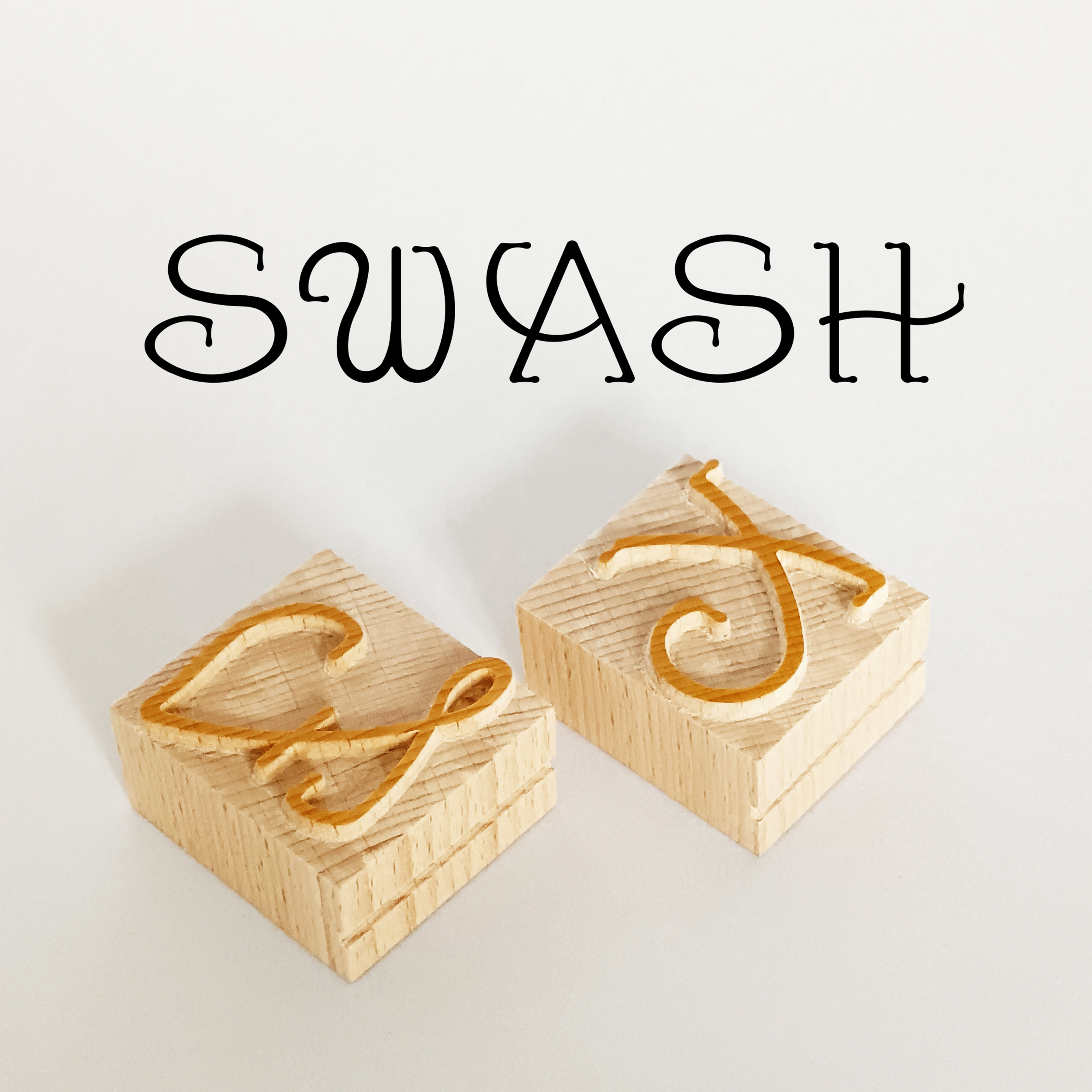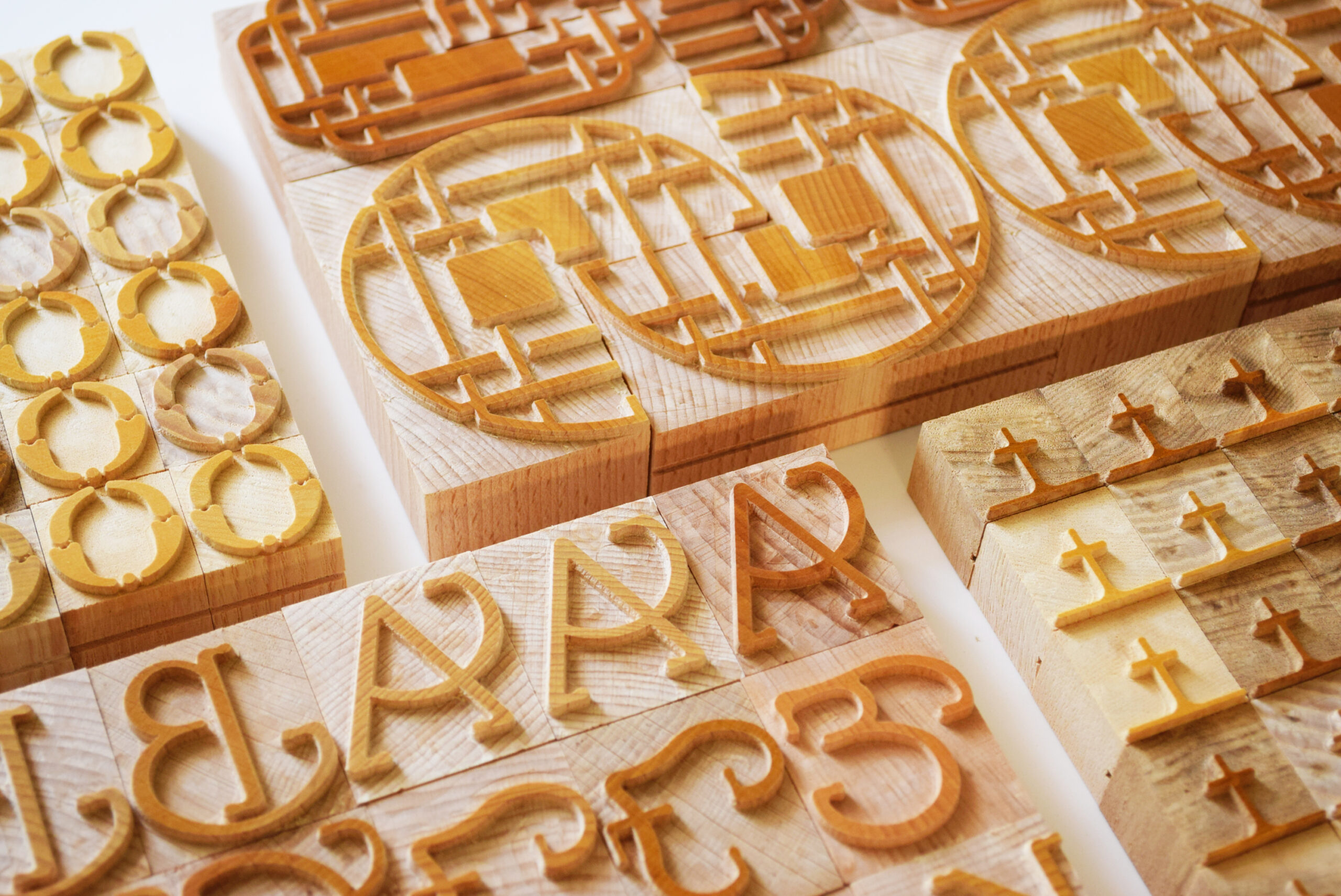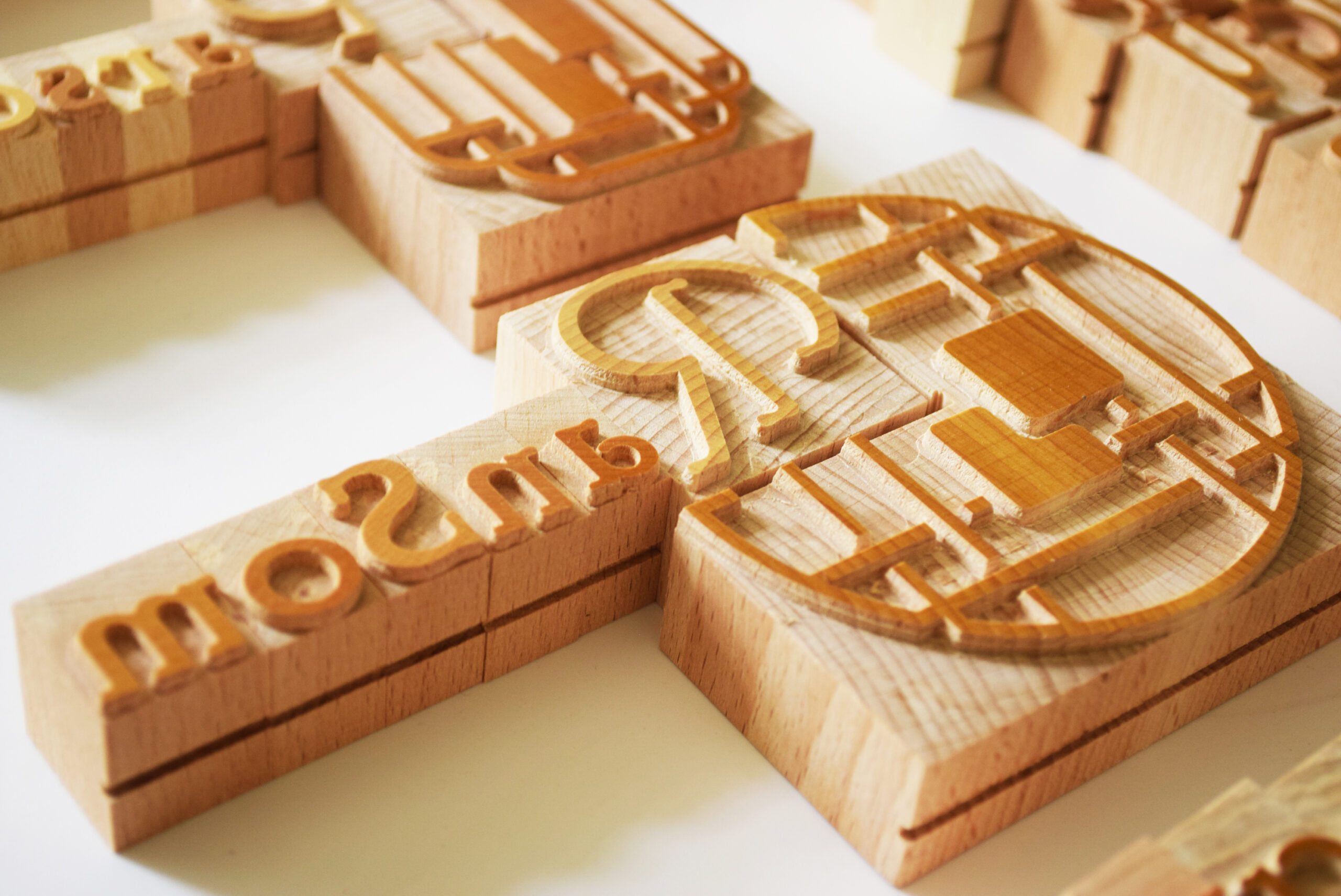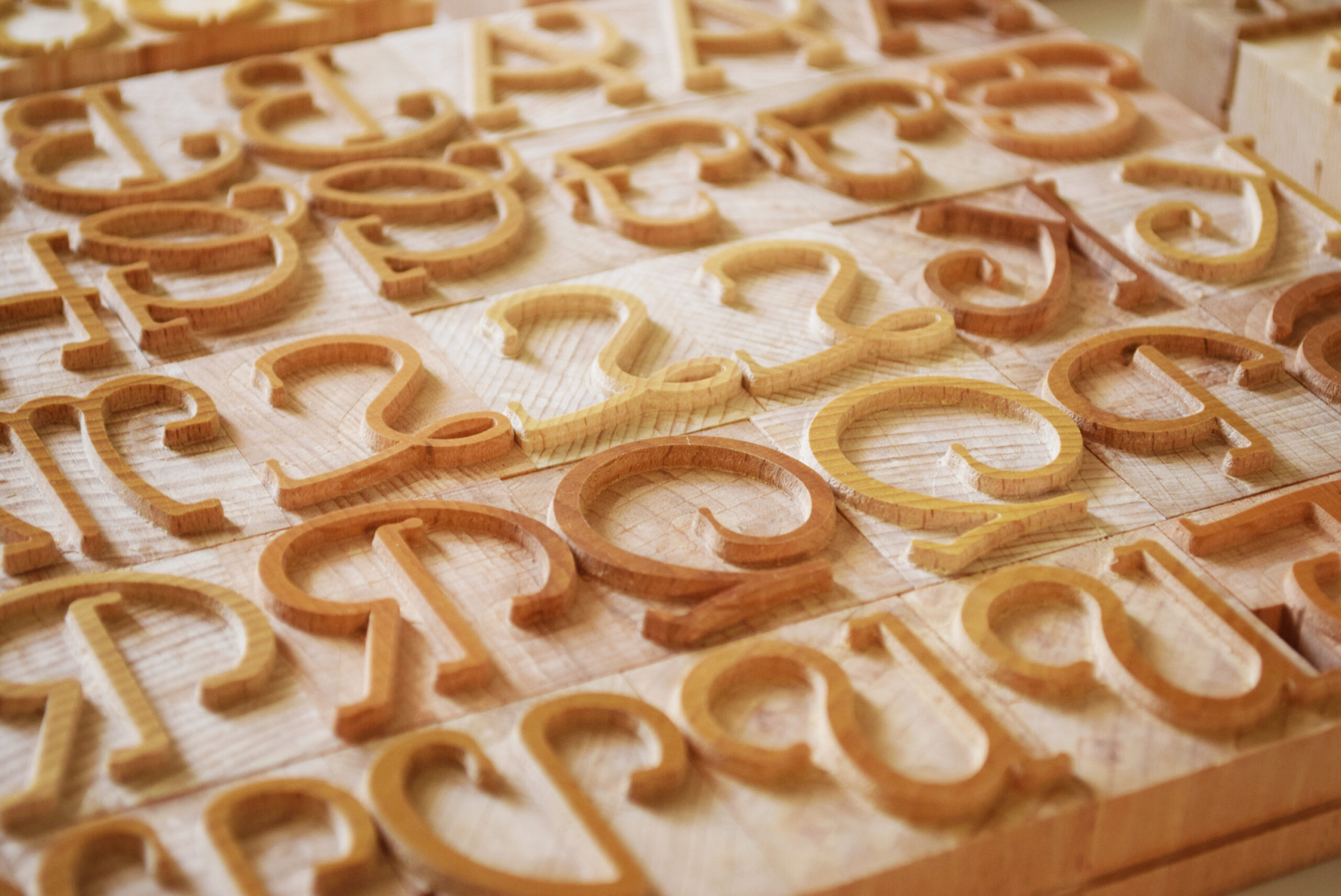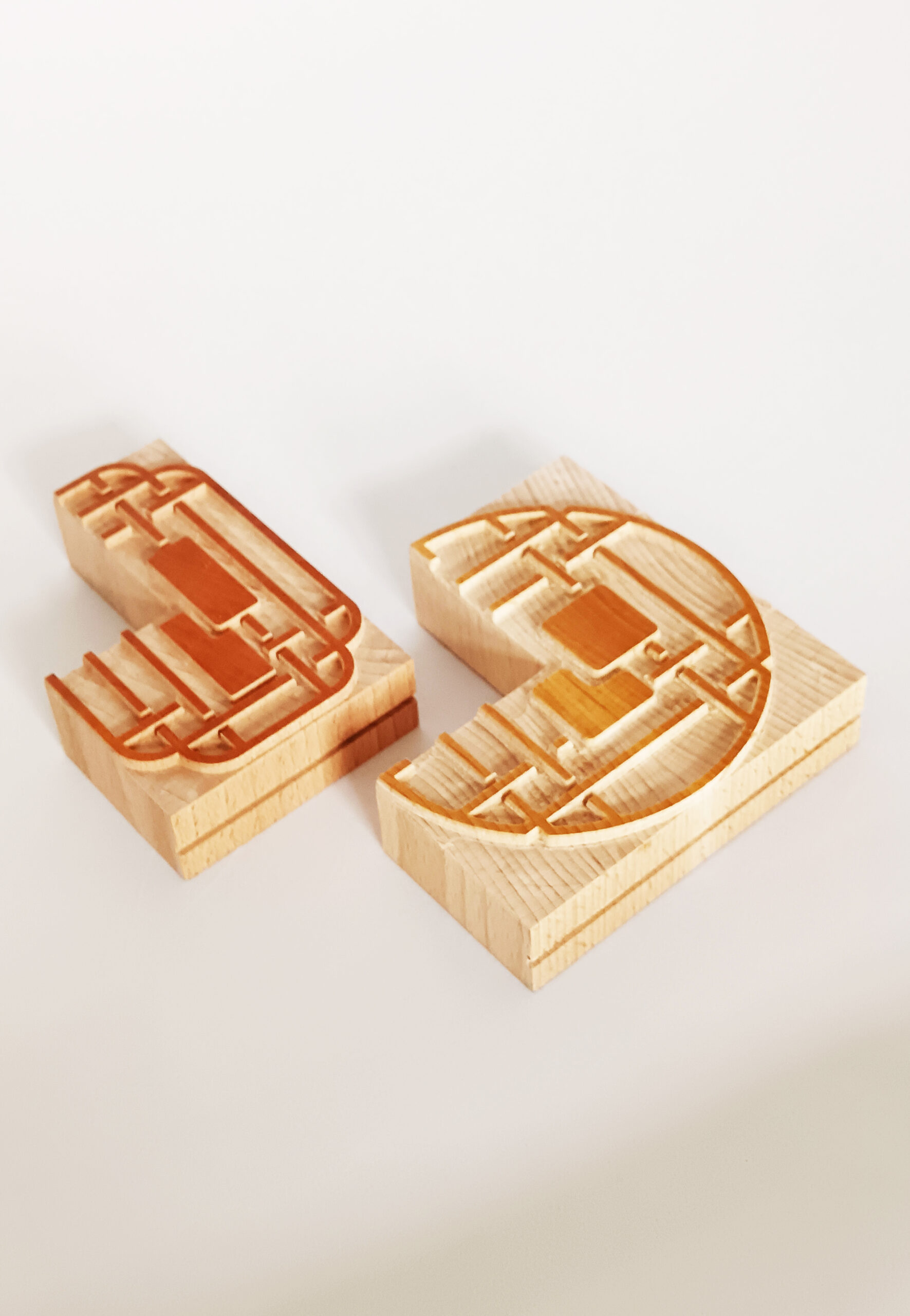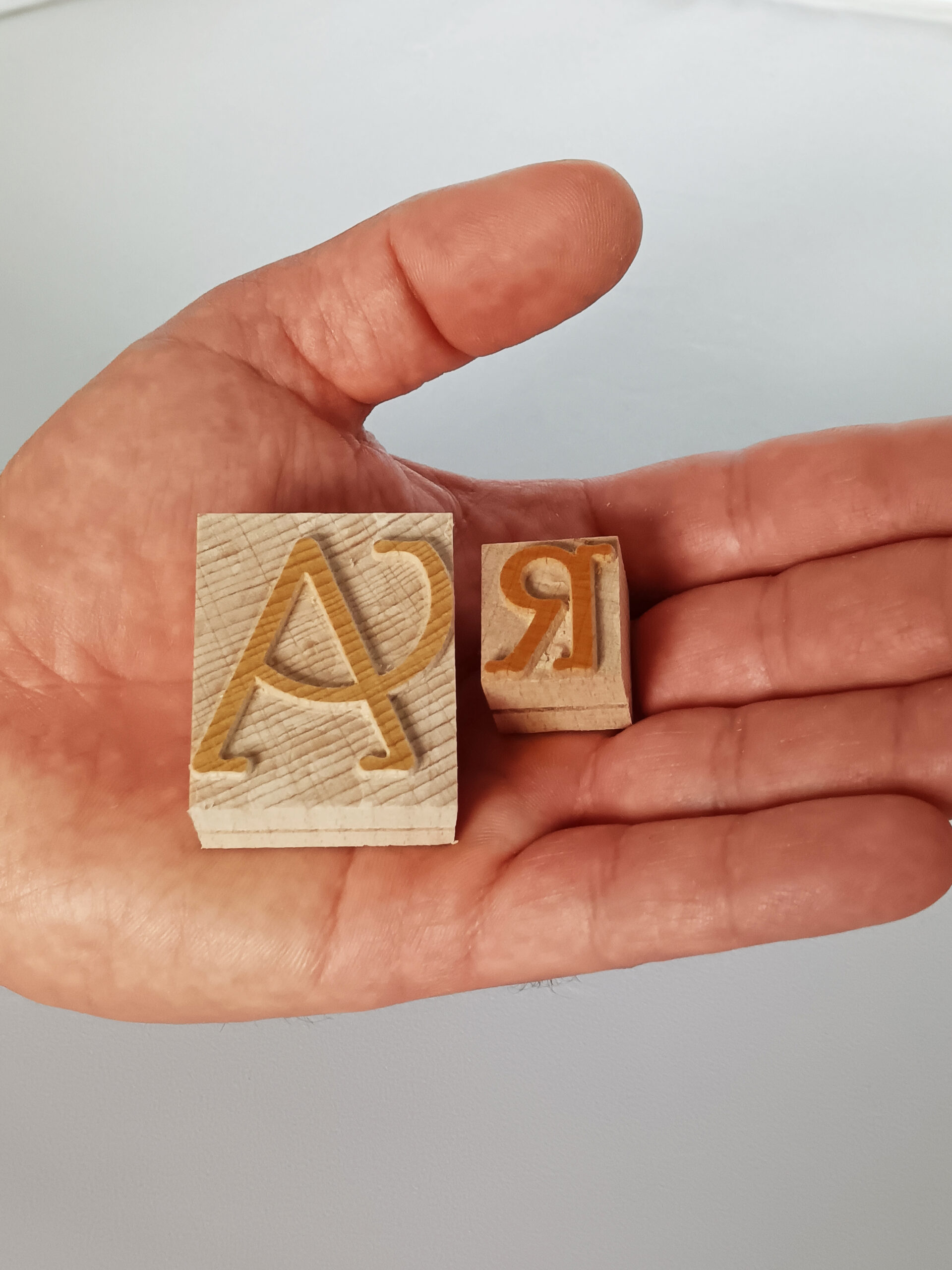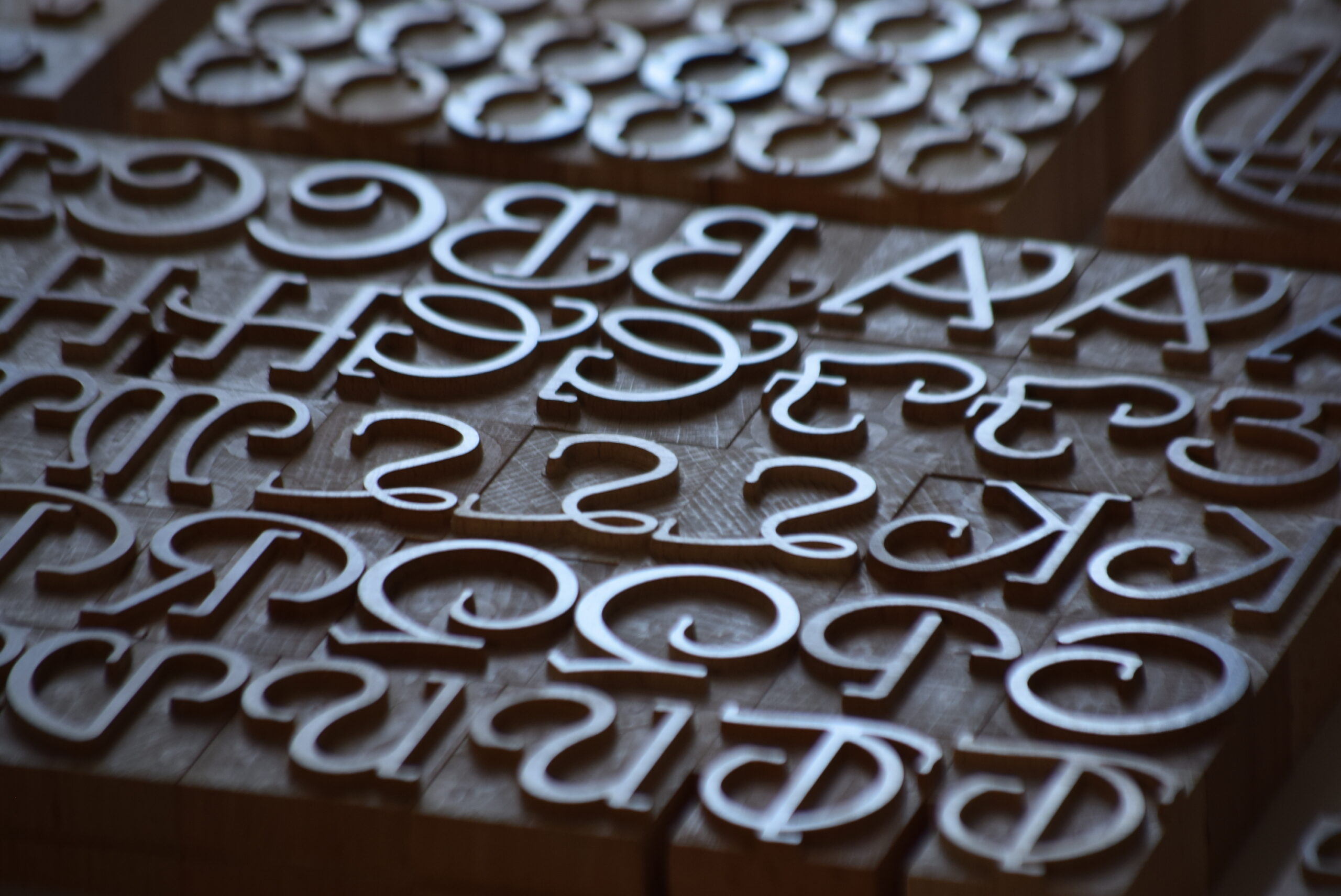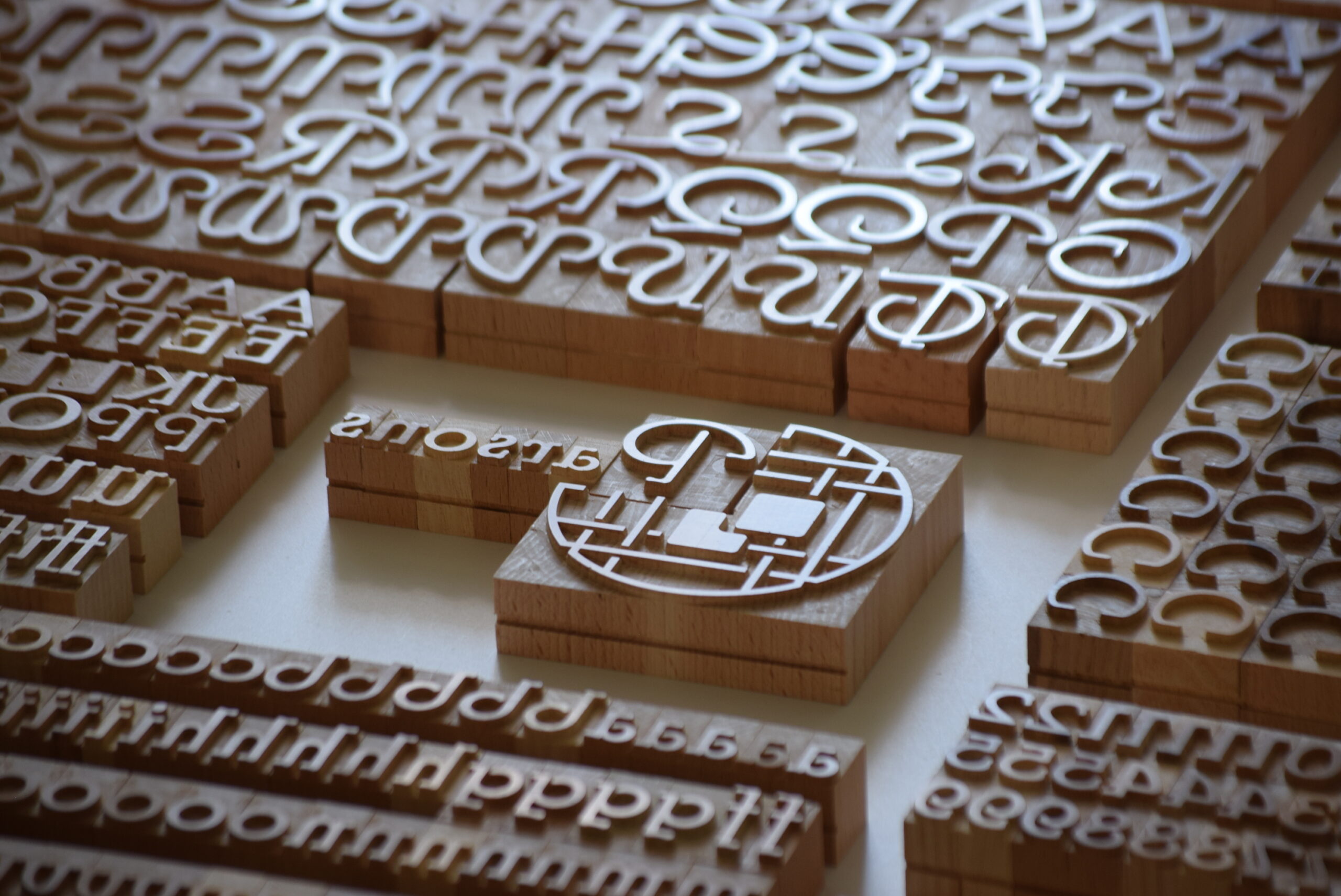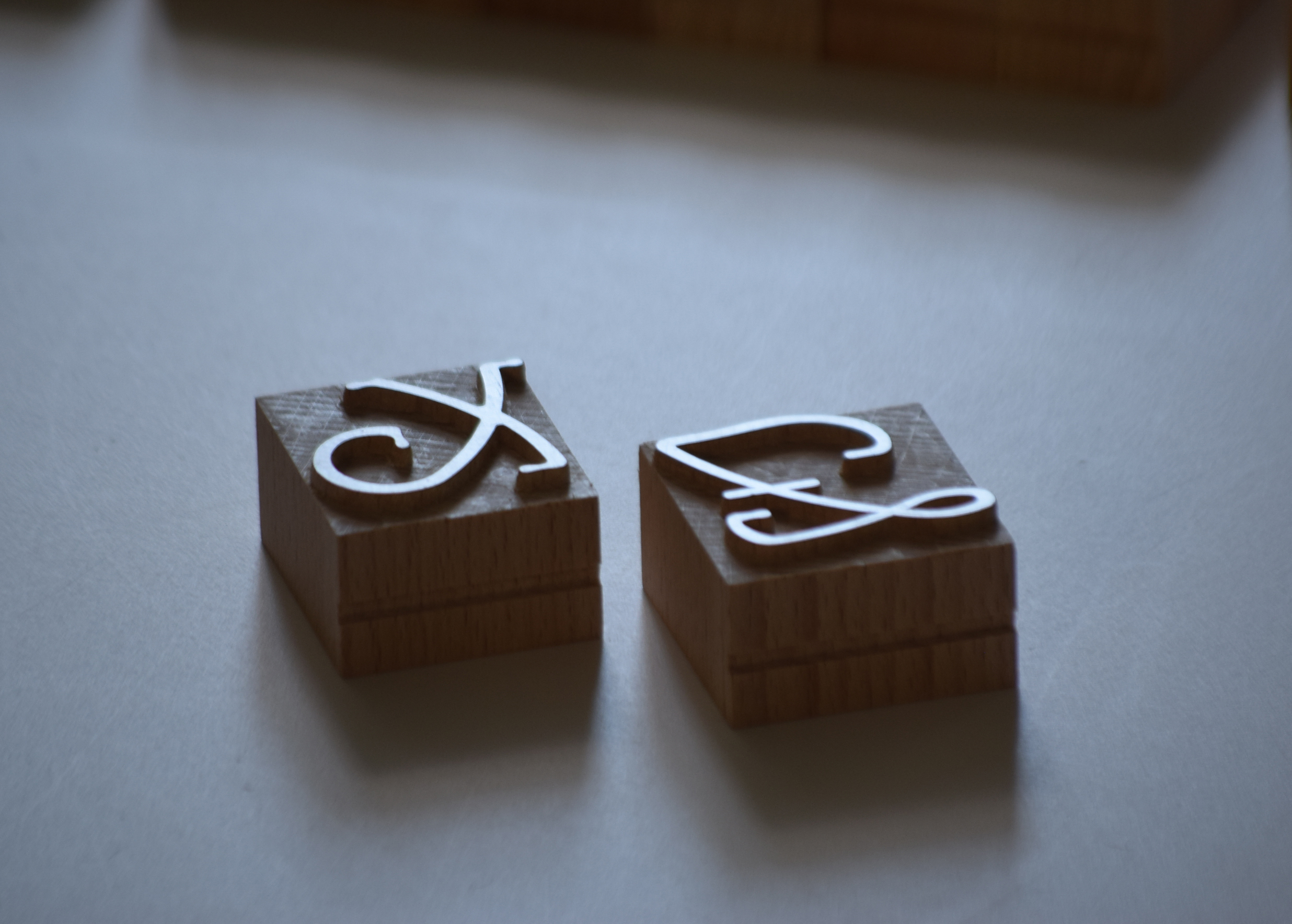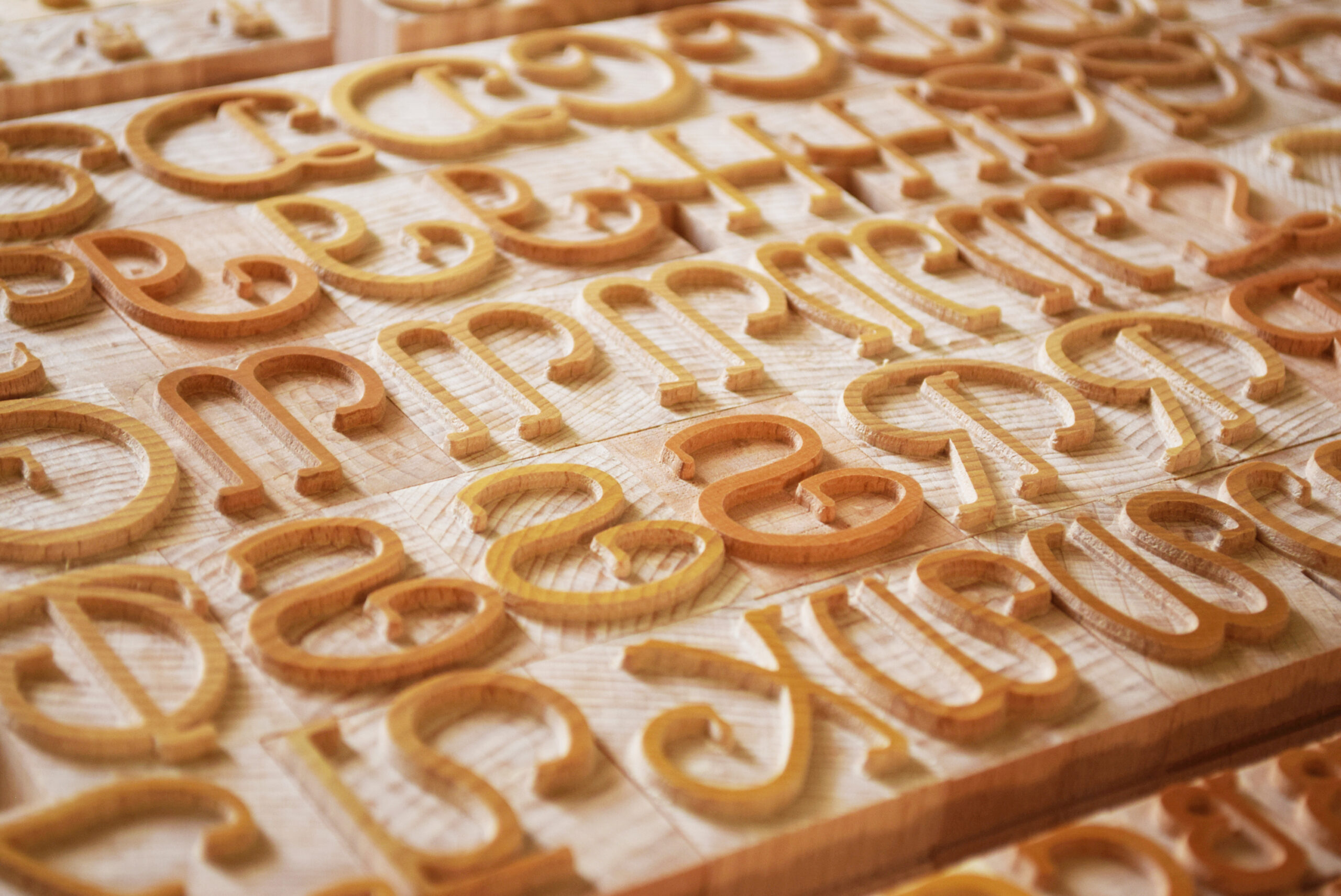
Parsons SWASH wood type is reconstructed and redesigned as wood type by Petrescu Press after original Parsons typeface designed by American graphic artist, calligrapher, and bibliographer Will Ransom in 1917 for the famous Barnhart Brothers & Spindler (BB&S) foundry, the font was named after I.R. Parsons, advertising director of the Carson Pirie Scott department store in Chicago. In an era dominated by rigid industrial typefaces and geometric serifs like Caslon or Cheltenham, Ransom wanted to bring the organic fluidity of decorative handwriting to print.
The set contains 2 pieces of Swash Decorators, one round and the other oval.
French polished, end-grain beech wood.
New, uninked, unused printing blocks cut from dry, treated beech wood on a cnc milling machine, each item is hand finished.